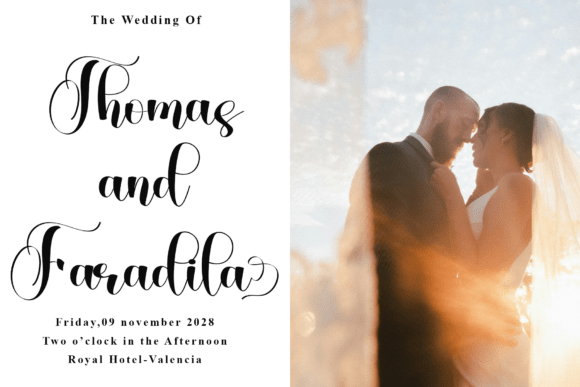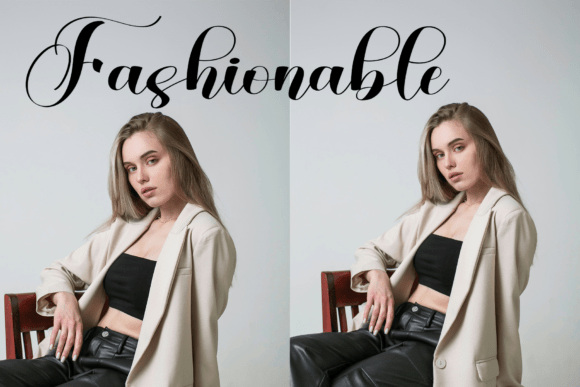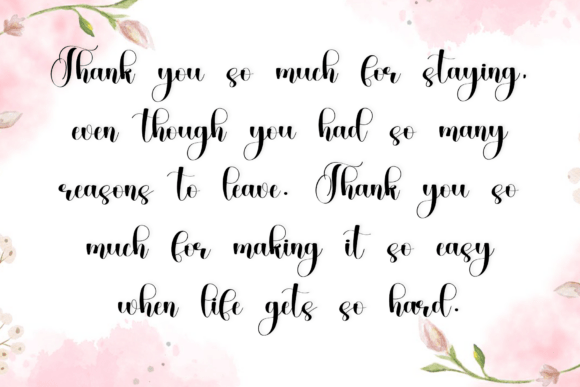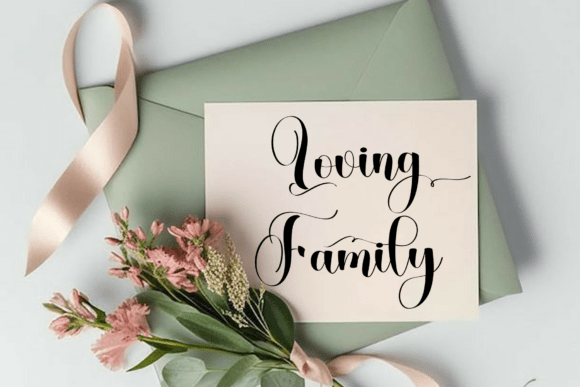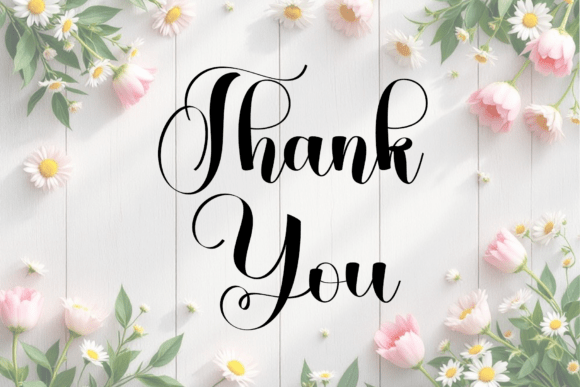
Discover the Charming Handwritten Font: Angela Font
Are you looking for a font that can add a touch of warmth and personality to your design projects? Look no further than Angela Font, a charming handwritten font that embodies freshness and casual elegance. With its fluid strokes and organic lines, Angela is perfect for designers and crafters seeking to create visually appealing and engaging content.
The Characteristics of Angela Font
Angela Font is a unique and versatile typeface that boasts a laid-back vibe, making it ideal for a wide range of design applications. Its key characteristics include:
- Fluid Strokes: Angela’s strokes are smooth and fluid, giving the font a natural and effortless look.
- Organic Lines: The font’s lines are organic and imperfect, adding a touch of warmth and humanity to your designs.
- Casual Elegance: Angela exudes a sense of casual elegance, making it perfect for designs that require a balance of sophistication and playfulness.
Uses for Angela Font
Angela Font is a versatile typeface that can be used in various design projects, including:
- Branding: Use Angela to create a unique and memorable brand identity that stands out from the crowd.
- Invitations: Add a touch of warmth and personality to your invitations, whether it’s for a wedding, birthday, or baby shower.
- Social Media Graphics: Use Angela to create engaging social media graphics that reflect your brand’s personality and style.
- Packaging: Angela is perfect for packaging designs that require a personal touch, such as food labels, product tags, or gift wrapping.
Benefits of Using Angela Font
So, why choose Angela Font for your design projects? Here are just a few benefits:
- Unique and Memorable: Angela’s distinctive look and feel will help your designs stand out and be remembered.
- Easy to Read: The font’s clear and legible design makes it easy to read, even at small sizes.
- Versatile: Angela can be used in a wide range of design applications, from digital to print.
- Time-Saving: With Angela, you can create professional-looking designs quickly and easily, saving you time and effort.
Tips for Using Angela Font
To get the most out of Angela Font, here are a few tips:
- Pair with Other Fonts: Combine Angela with other fonts to create a unique and visually appealing typography.
- Experiment with Colors: Try out different colors and color combinations to find the perfect match for your design.
- Pay with Size: Experiment with different font sizes to create visual hierarchy and emphasis.
- Add Texture and Patterns: Add texture and patterns to your designs to give them an extra layer of depth and interest.
Angela Font is a charming handwritten font that can add a touch of warmth and personality to your design projects. With its fluid strokes, organic lines, and casual elegance, Angela is perfect for designers and crafters seeking to create visually appealing and engaging content. Whether used for branding, invitations, social media graphics, or packaging, Angela is sure to make your designs stand out. So why not give Angela a try and see the difference it can make in your designs?